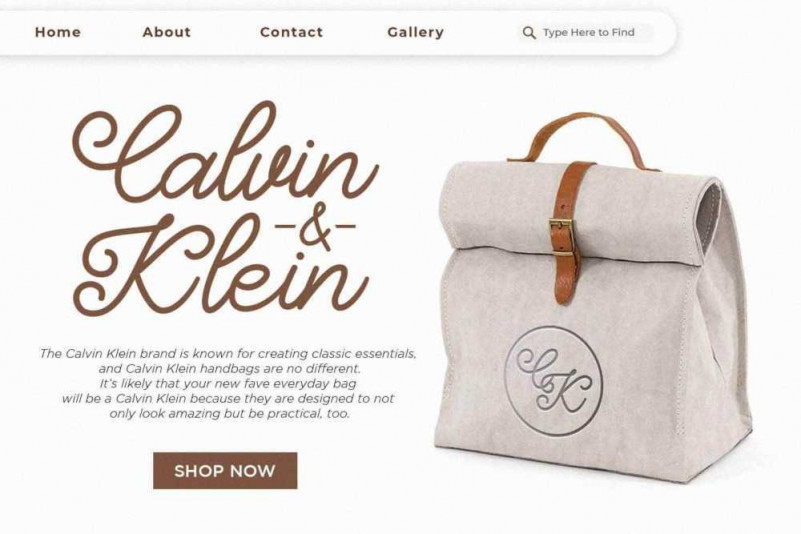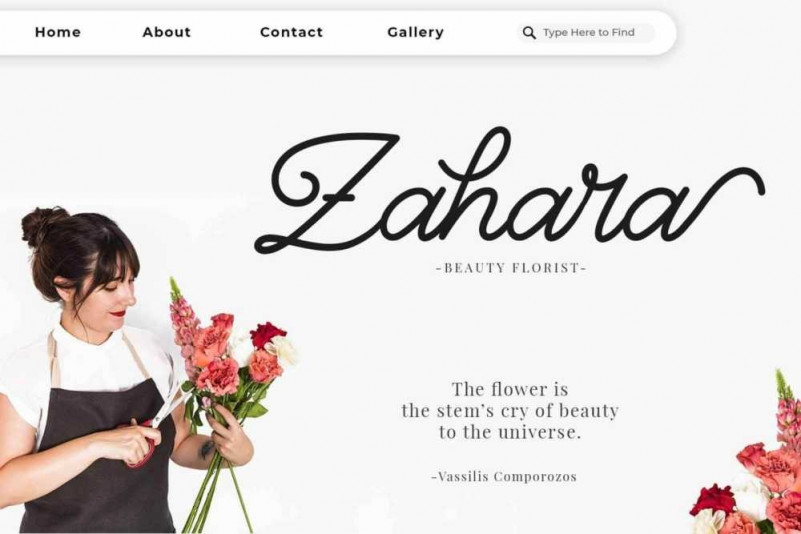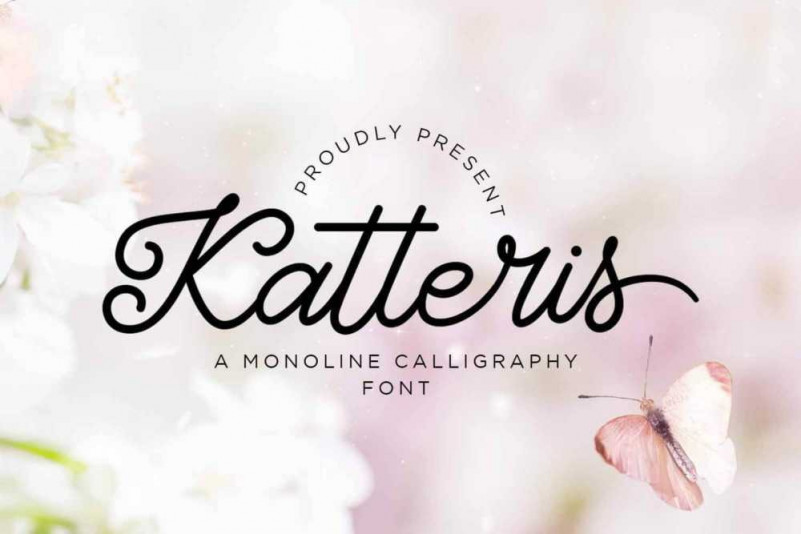
Katteris Calligraphy Font
Katteris is a stunning monoline style calligraphy font with authentic and casual feels. It will be perfectly used for Branding, Logo Design, Lettering, Logotype, Clothing, Poster, magazine, packaging, posters, shopping bags, t-shirts, book covers, photography, special events, and other design project.